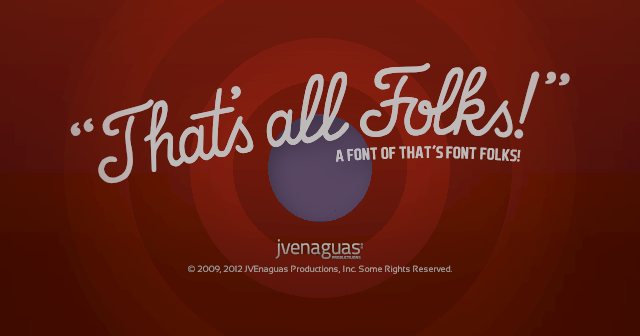
Font name: | That's Font Folks! |
Author: | Jayvee Enaguas |
Note by Jayvee Enaguas | |
This font has designed by Jayvee D. Enaguas and it has inspired in mid-30s to present font of Looney Tunes and Merrie Melodies ending screen. |